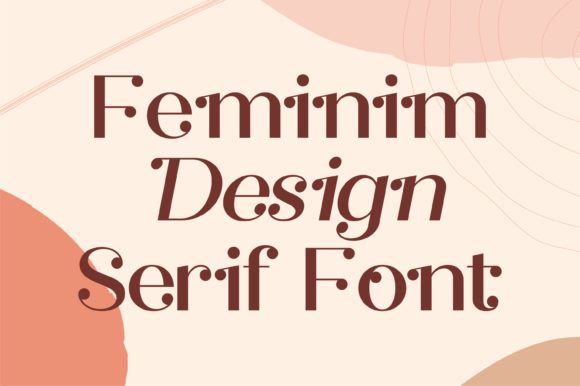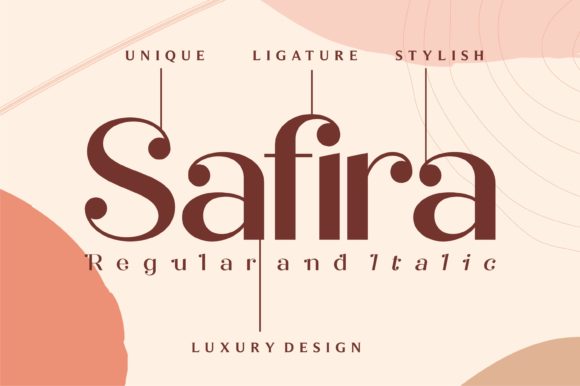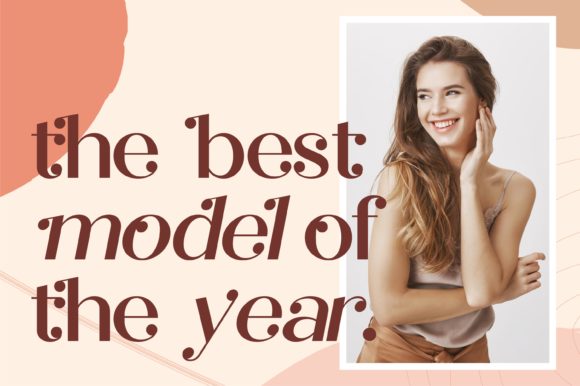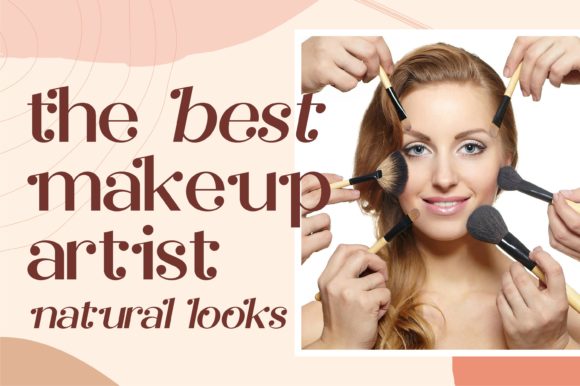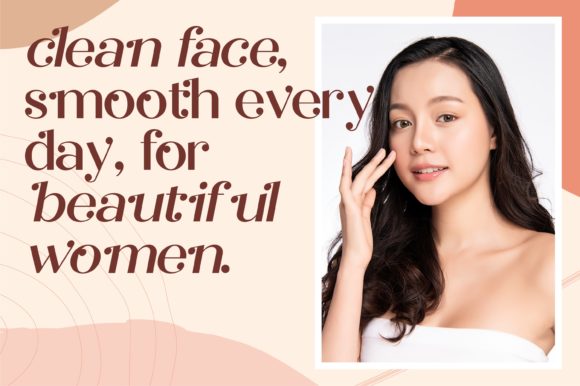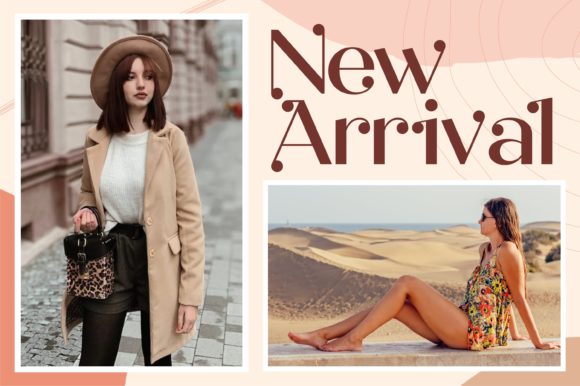
Introduction to Safira Font
Safira is a modern and elegant serif font.
It has a casual, yet elegant touch It can be used for various purposes such as logos, wedding invitations, headings, t-shirts, letterhead, signage, labels, news, posters, badges and so much more.
Key Features of Safira Font
Why Choose Safira Font?
Safira Font offers exceptional quality and versatility, making it a valuable addition to your design toolkit. Whether you’re creating for personal projects or commercial use, Safira Font delivers professional results.